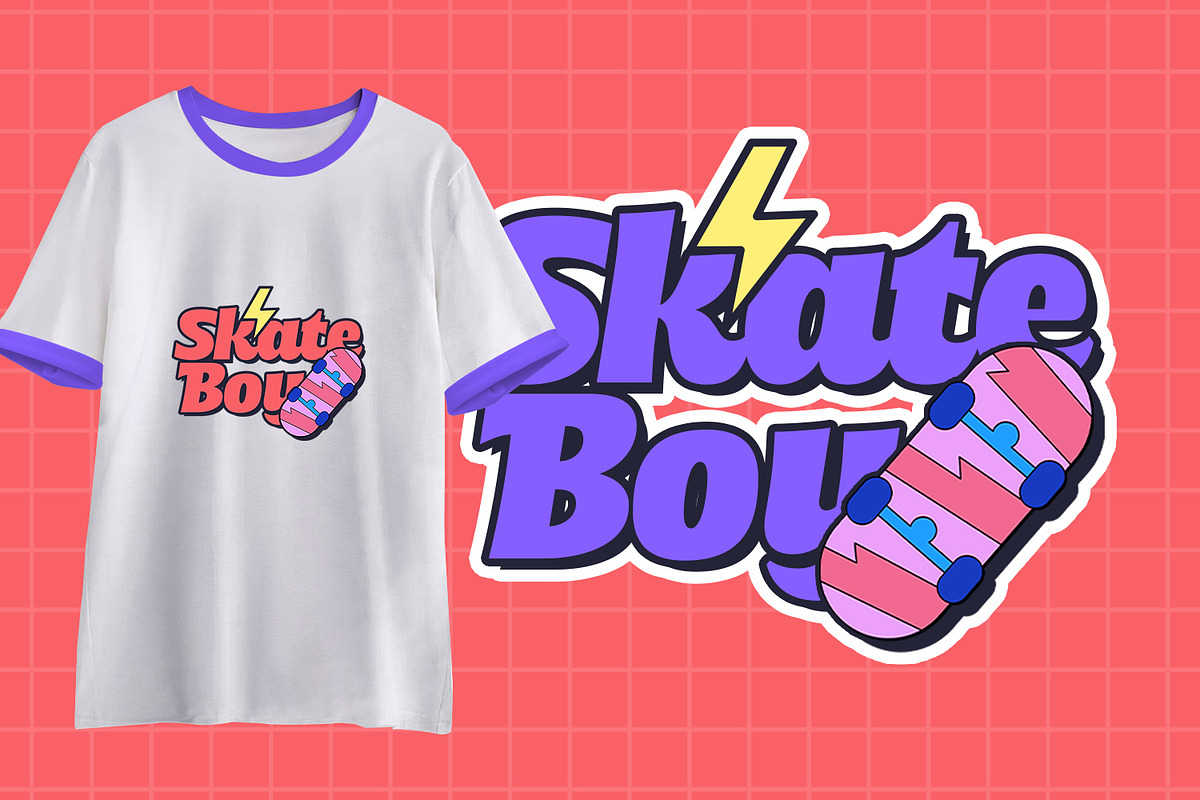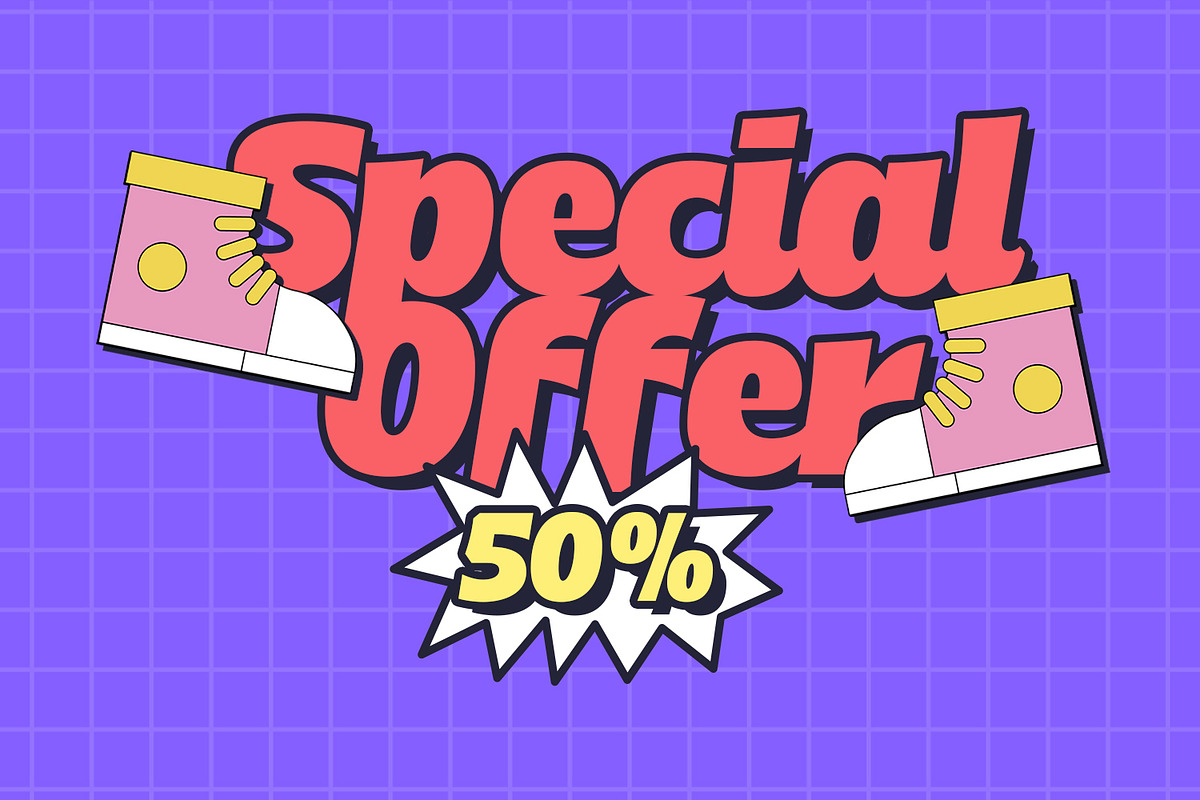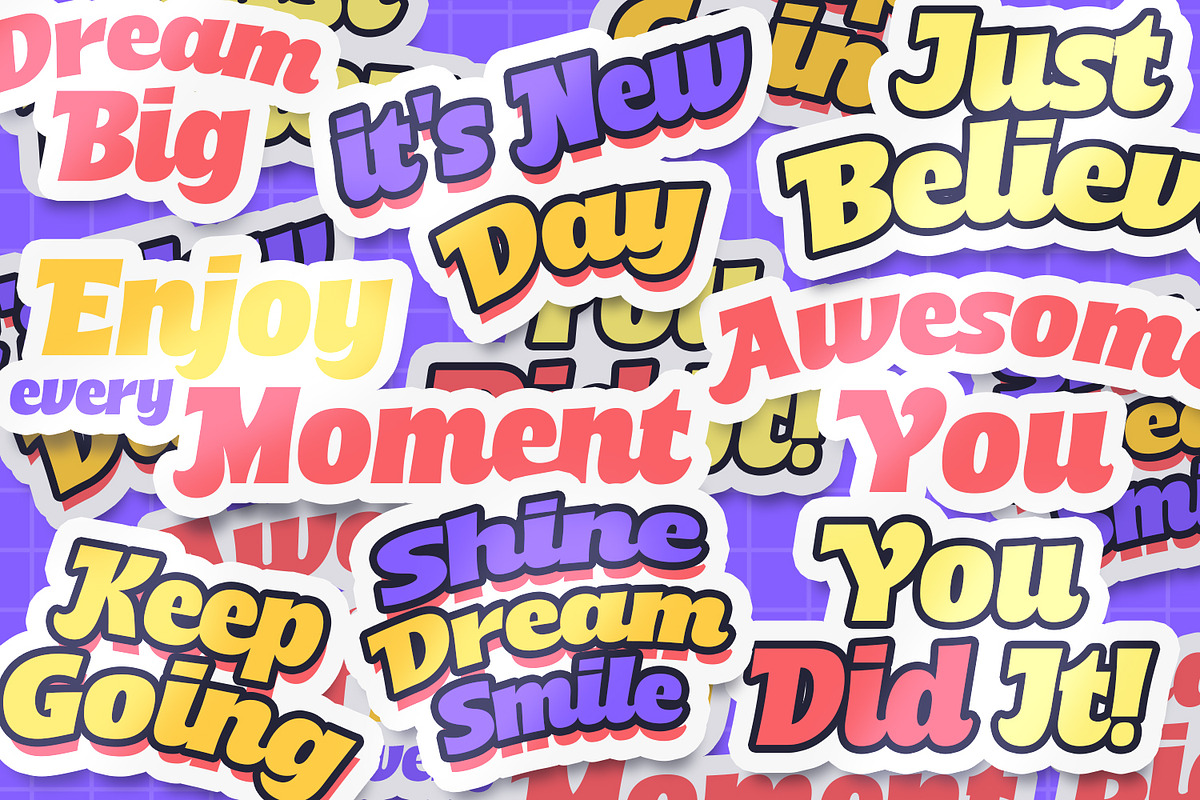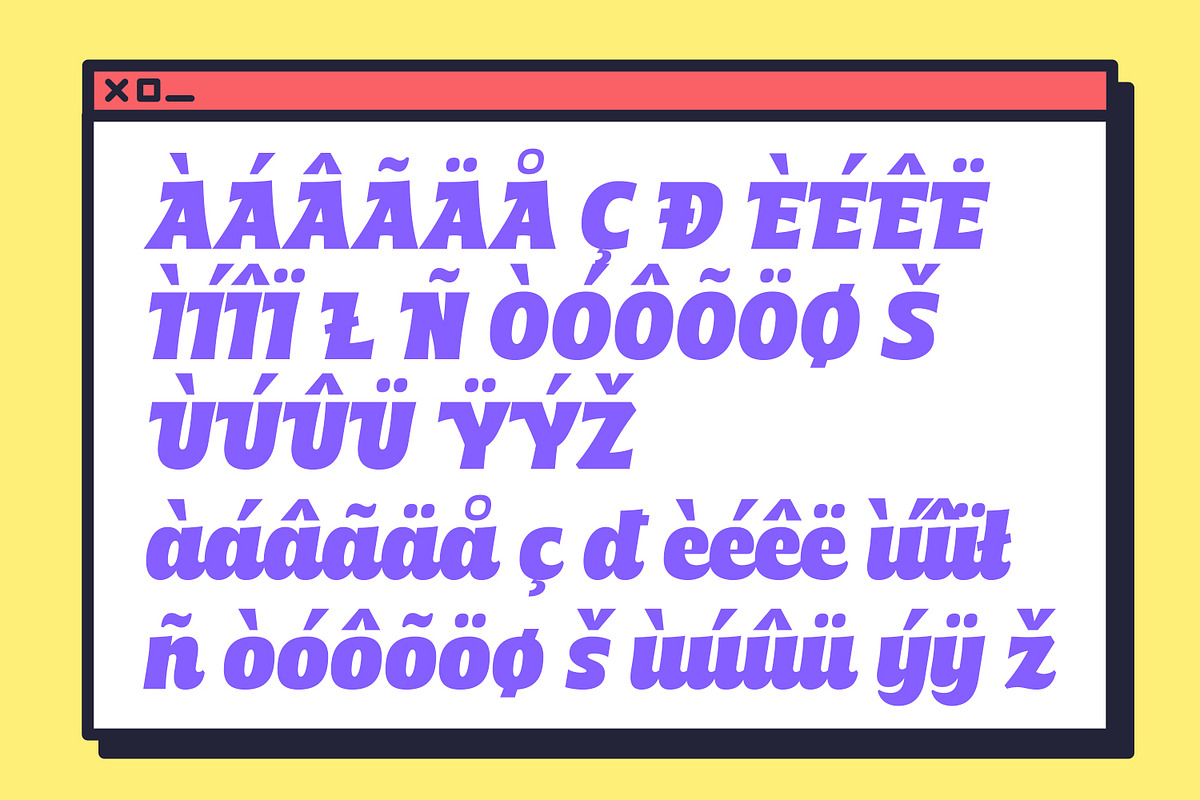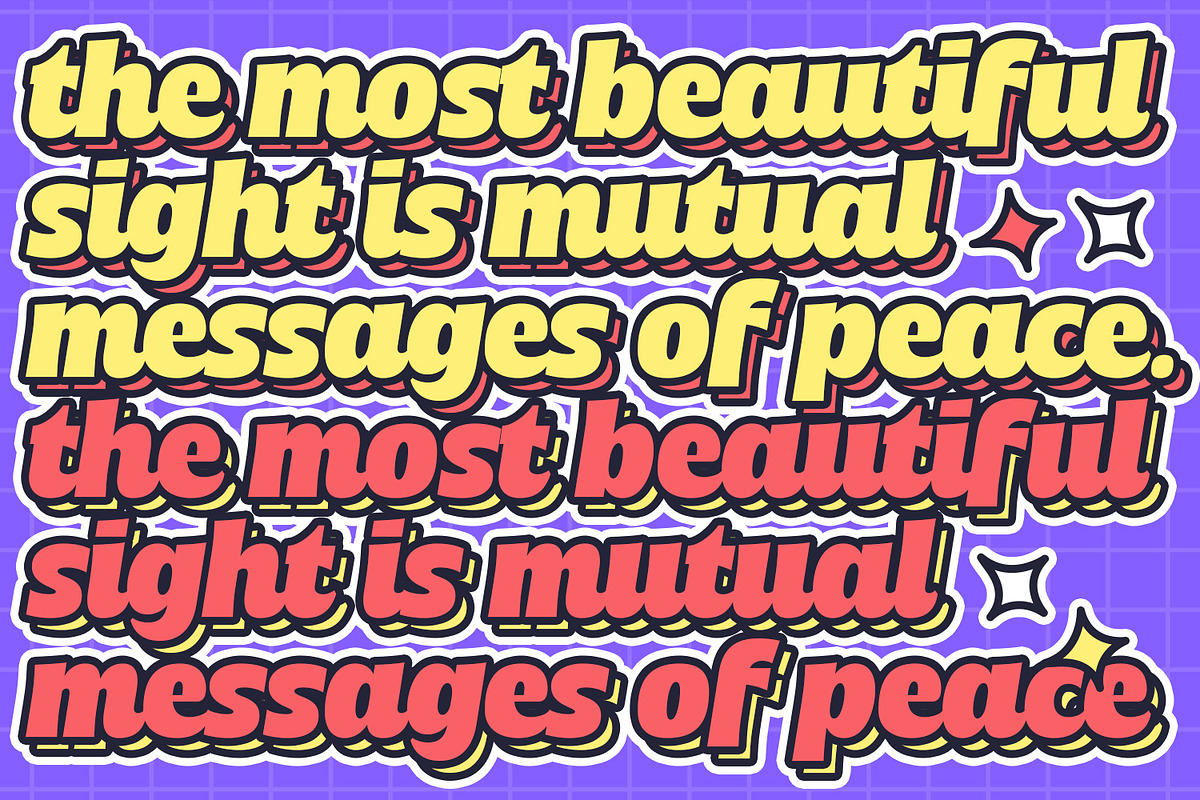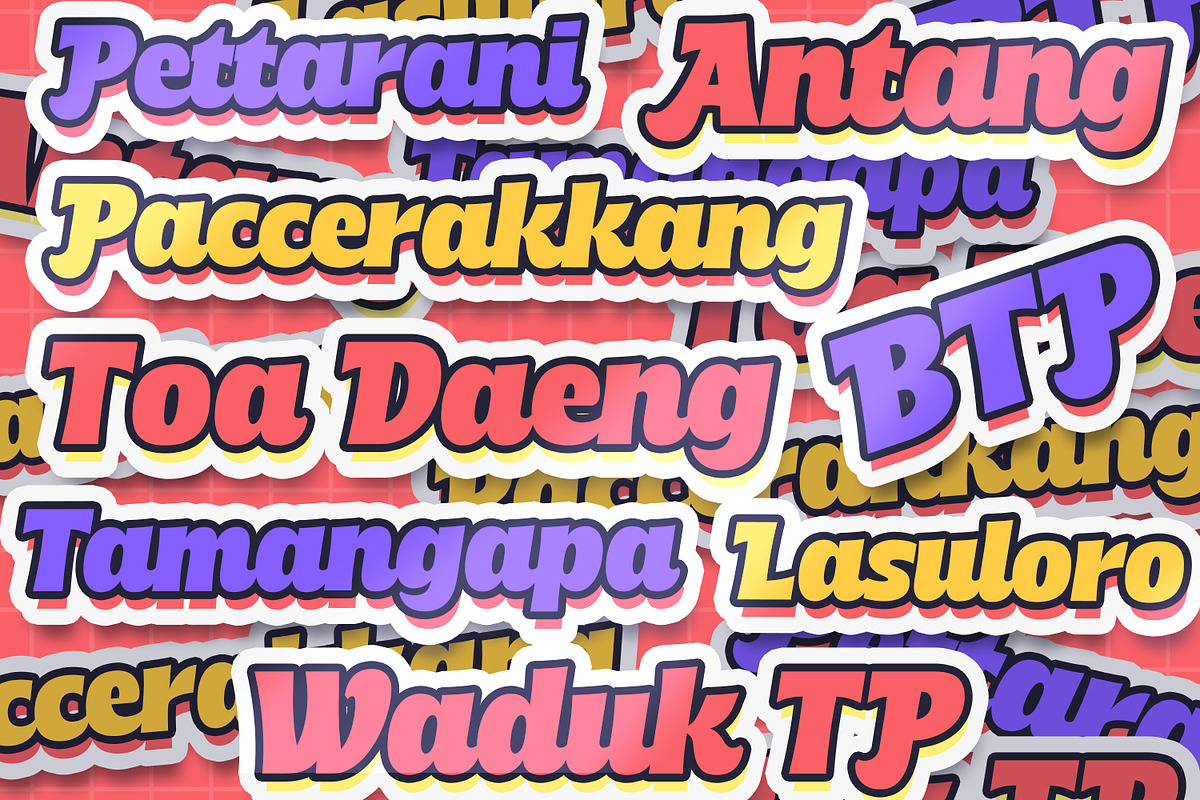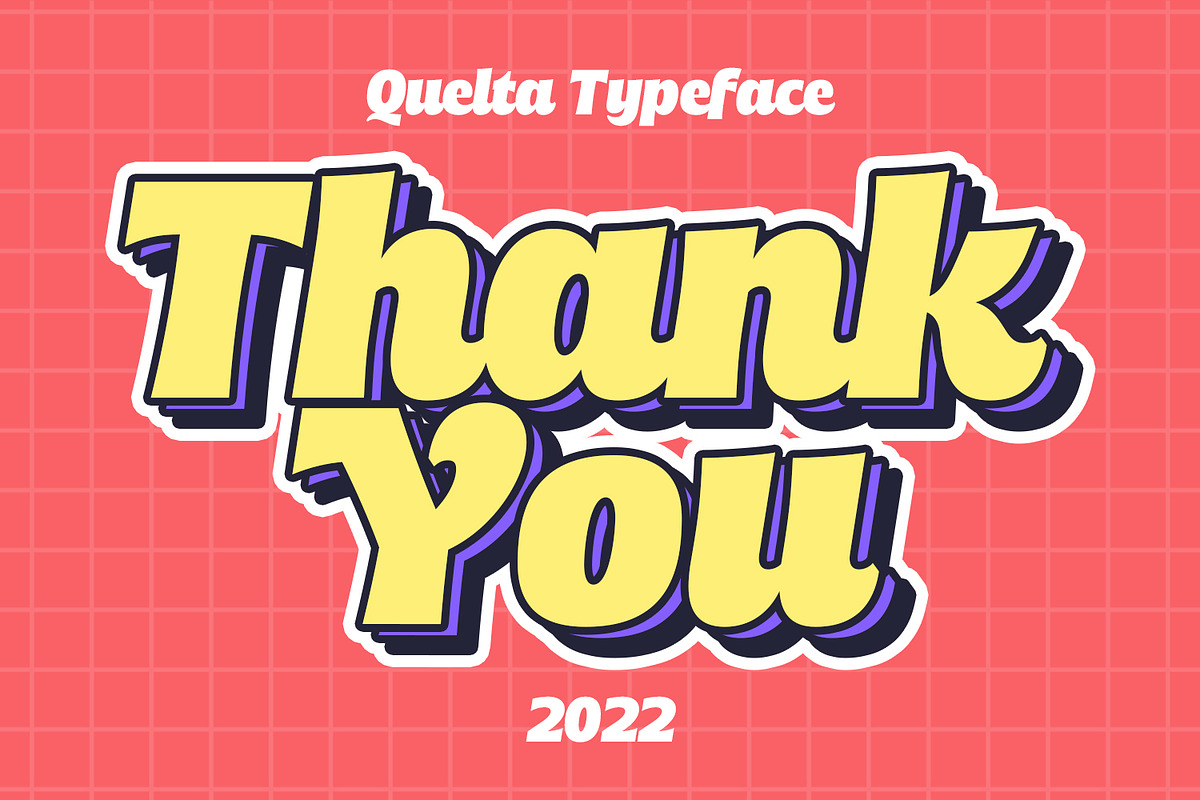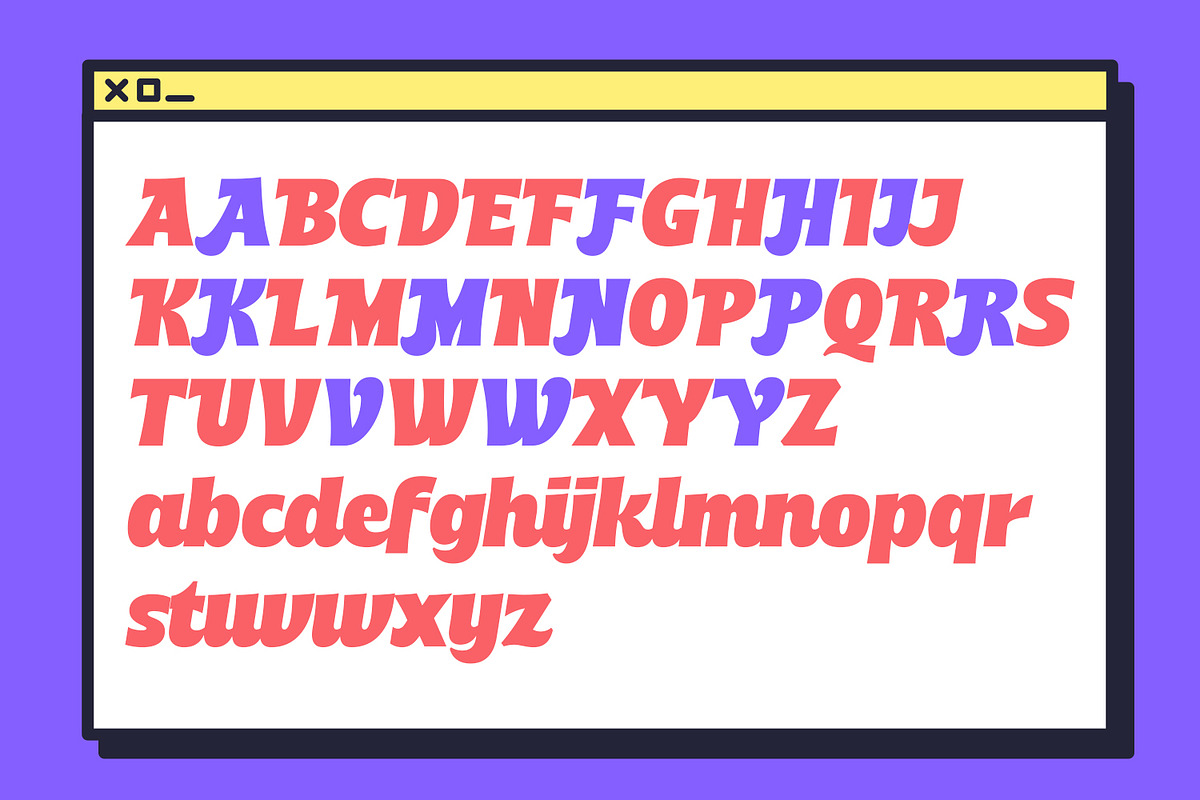
Quelta – Classic Bold Script
Introducing Quelta, a bold script font that exudes classic vintage charm. This font comes packed with stylistic sets, Contextual Alternatives, ligatures, and multi-language support, offering a wide range of creative possibilities.
With its unique appearance, Quelta is ideal for various projects such as Logotypes, printed quotes, invitations, cards, product packaging, headers, Letterhead, Apparel, Web design, Magazine layouts, Books, and more.
Elevate your designs with Quelta’s timeless elegance and versatility. Whether you’re crafting a vintage-inspired logo or designing a stylish invitation, this font will surely make your work stand out. Embrace the classic yet modern appeal of Quelta and let your creativity shine! Experience the unmatched flexibility of Quelta for your next project, where every letter tells a story of classic sophistication.